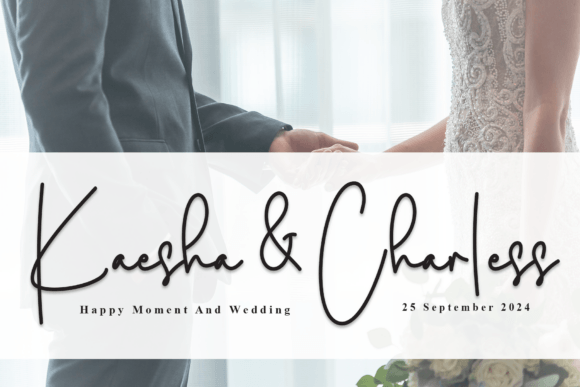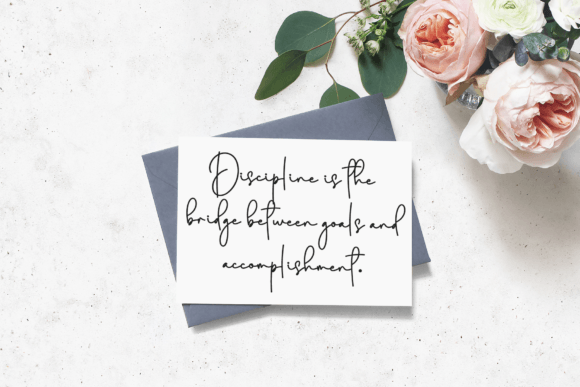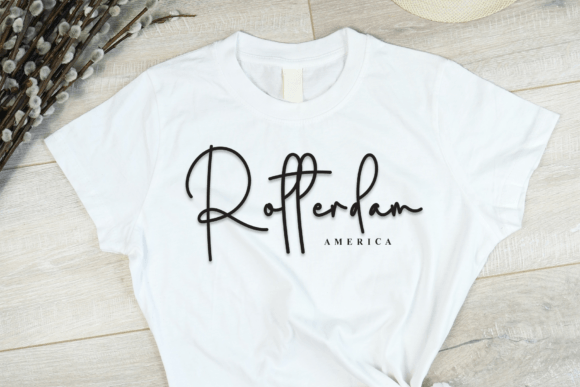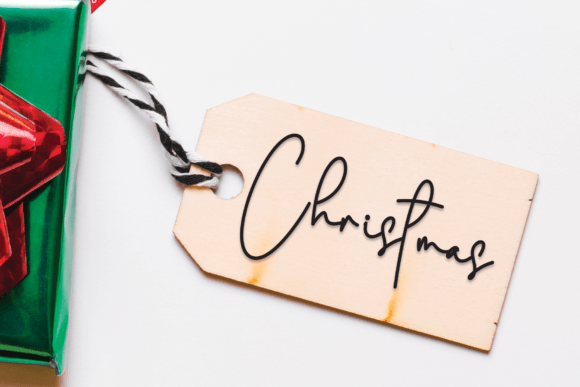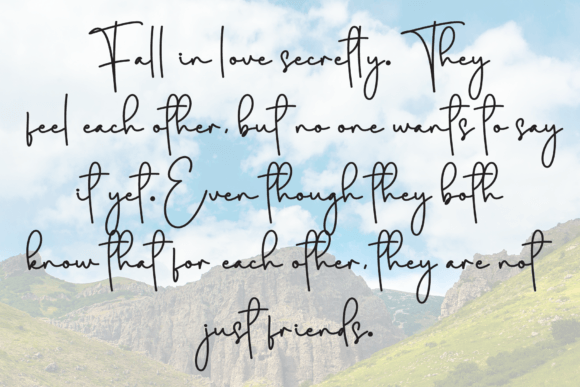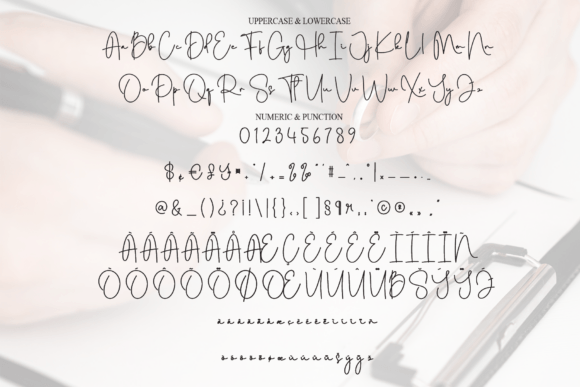
Introducing Daniel Signature Font: Elevate Your Design with a Personal Touch
In the world of typography, a well-crafted font can make all the difference in the success of a design project. For designers and crafters looking to add a touch of elegance and personality to their work, Daniel Signature Font is an excellent choice. This stylish handwritten font boasts a natural, flowing look that is sure to capture the attention of your audience.
The Characteristics of Daniel Signature Font
Daniel Signature Font is a beautifully designed font that features smooth, elegant lines that feel personal and warm. Its natural, handwritten aesthetic makes it perfect for adding a signature touch to logos, invitations, and personal branding. The font’s flowing lines and curves create a sense of movement and fluidity, giving it a dynamic and engaging feel.
What Makes Daniel Signature Font Stand Out
So, what sets Daniel Signature Font apart from other fonts on the market? Here are a few key characteristics that make it a standout choice for designers and crafters:
- Natural, handwritten look: Daniel Signature Font has a genuine, handwritten feel that is perfect for creating a personal connection with your audience.
- Smooth, elegant lines: The font’s smooth lines and curves create a sense of sophistication and elegance, making it perfect for high-end designs.
- Versatile: Daniel Signature Font can be used for a wide range of design projects, from logos and invitations to personal branding and packaging.
- Easy to read: Despite its elegant, cursive appearance, Daniel Signature Font is easy to read and understand, making it perfect for body text and headlines.
How to Use Daniel Signature Font in Your Design Projects
Daniel Signature Font is a versatile font that can be used in a variety of design projects. Here are a few ideas to get you started:
- Logos: Use Daniel Signature Font to create a unique and memorable logo for your business or brand.
- Invitations: Add a touch of elegance to your invitations with Daniel Signature Font, perfect for weddings, parties, and other special events.
- Personal branding: Use Daniel Signature Font to create a consistent and professional look for your personal brand, including business cards, social media graphics, and more.
- Packaging: Add a personal touch to your product packaging with Daniel Signature Font, perfect for small businesses and crafters.
Tips for Getting the Most Out of Daniel Signature Font
To get the most out of Daniel Signature Font, here are a few tips to keep in mind:
- Use it sparingly: Daniel Signature Font is a statement font, so use it sparingly to add emphasis and personality to your design.
- Experiment with colors: The font’s elegant lines and curves look great in a variety of colors, so don’t be afraid to experiment and find the perfect hue for your design.
- Pair it with other fonts: Daniel Signature Font pairs well with a variety of other fonts, so try pairing it with a clean sans-serif font for a bold and modern look.